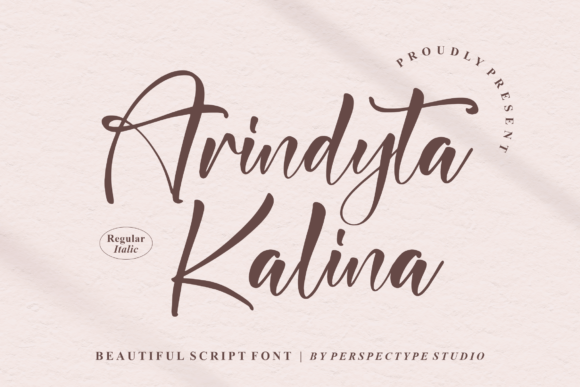
The Designer’s Delight: Arindyta Kalina Font
Have you ever been in the middle of a design project, and suddenly, you’re stuck on finding the perfect font? I recall a recent experience where I was working on a branding project for a luxurious homeware brand. The client wanted a font that exuded elegance, sophistication, and a touch of playfulness. After hours of scouring through font libraries, I stumbled upon the stunning Arindyta Kalina Font. It was love at first sight! 💕
- ✨ Elegant and flowing script style that’s perfect for high-end designs
- 💫 Highly versatile and can be used for a wide range of projects, from logos to product packaging
- 🎨 Beautifully crafted to add a touch of sophistication to any design
While Arindyta Kalina Font is an exceptional font, there are a few minor quirks to be aware of:
- ⚠️ Some users may find the font a bit too ornate for certain projects, such as minimalist designs
- 🤔 Limited availability of bold or condensed variations, which may limit its use in certain contexts
The Story Behind Arindyta Kalina Font
Arindyta Kalina Font was crafted with love and care by a talented designer who wanted to create a font that would add a touch of elegance to any design. The designer’s inspiration came from traditional script fonts, with a modern twist to make it more versatile and user-friendly. The result is a stunning font that’s perfect for designers, crafters, and creative hobbyists alike.
Q: Is Arindyta Kalina Font suitable for body text?
A: While Arindyta Kalina Font is beautiful, it’s best suited for headlines, titles, and short paragraphs. For body text, a more readable font may be more suitable.